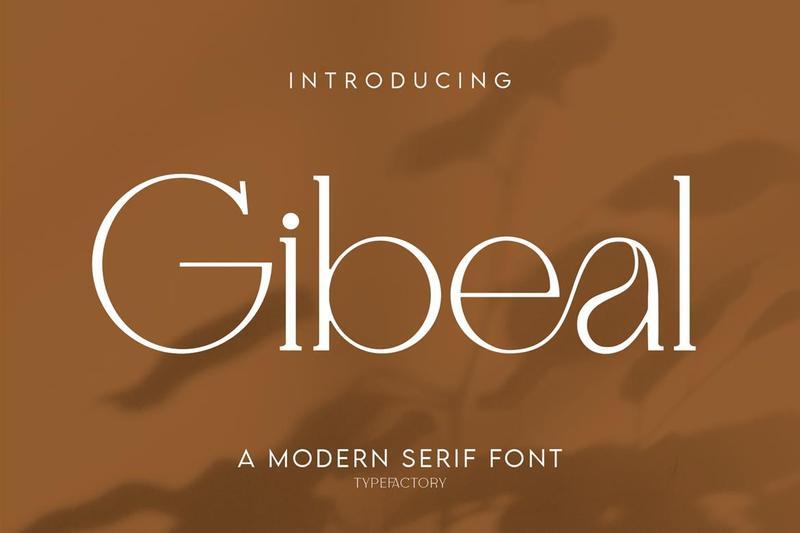
Gibeal is a modern serif font that combines timeless elegance with contemporary sophistication. Designed with refined high-contrast strokes, graceful curves, and distinctive ligatures, it creates an aesthetic that instantly elevates any design. The carefully crafted alternate characters provide creative flexibility while preserving readability, making Gibeal ideal for beautiful branding, fashion editorials, cosmetics packaging, wedding invitations, logos, magazines, social media, beauty products, and high-end marketing materials. Its beautiful personality delivers a perfect balance between classic serif tradition and modern minimalist style.
Features:
Uppercase
Lowercase
Symbols & Punctuation
Numeral
Ligature
Multilingual Support